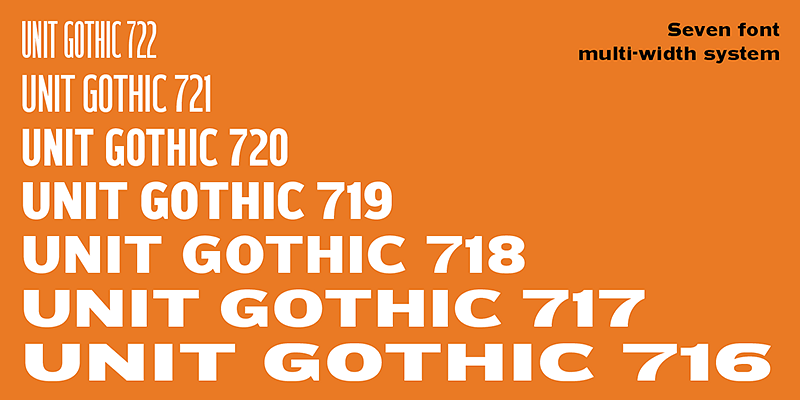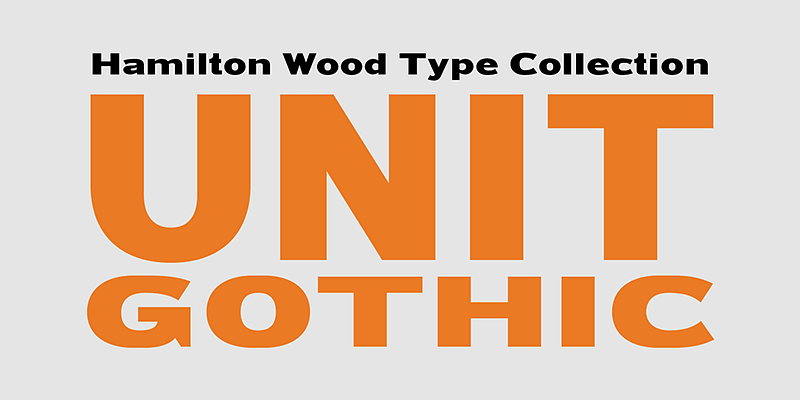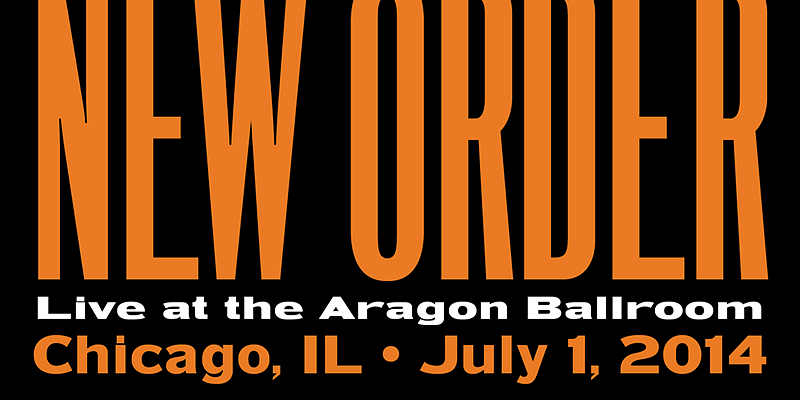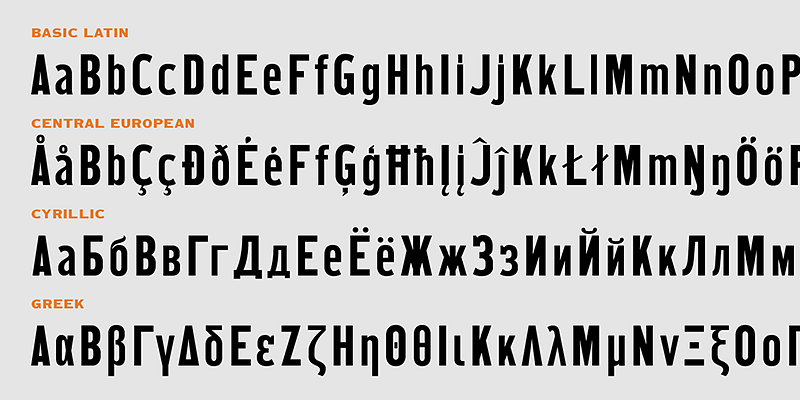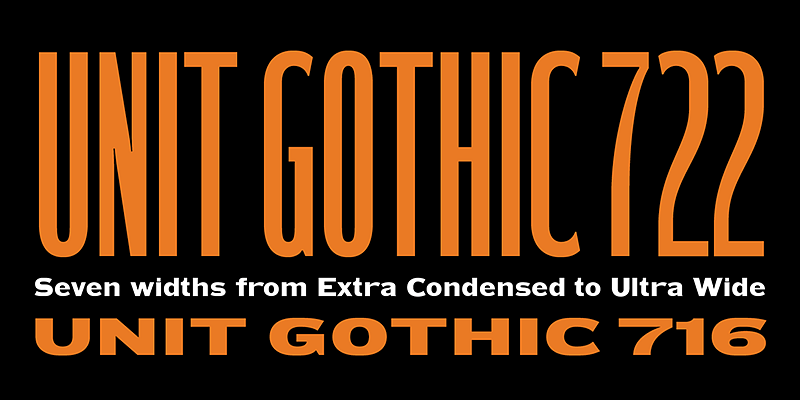
HWT Unit Gothic series was released by Hamilton Mfg. Co. in 1907. This sans serif family features one of the first multi width/weight type systems, anticipating the Univers font system by fifty years.